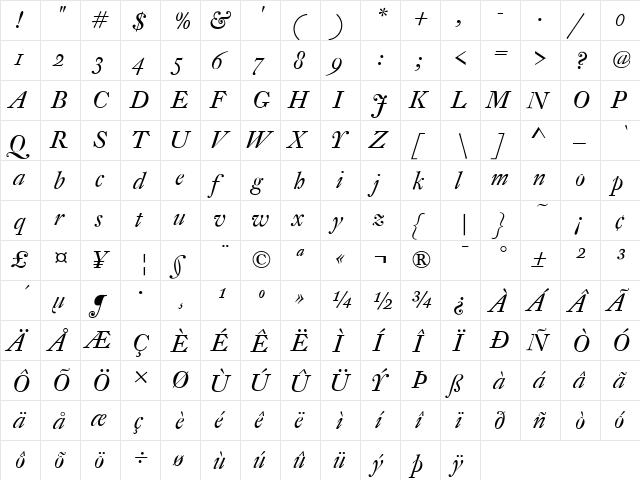
DTLFleischmannSD Italic
Design Context for DTLFleischmannSD Typeface
DTLFleischmannSD takes a measured approach to typography — its balanced proportions and neutral character make it a reliable workhorse for both digital and print work. The dynamic lean of this cut emphasises speed and emphasis in any layout.
Pro Tip: Try DTLFleischmannSD for annotation and caption copy alongside an upright companion — the contrast in angle creates a dynamic but ordered typographic system.